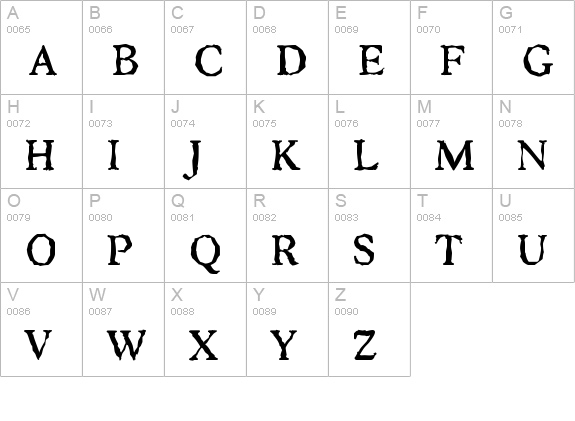
StratfordRandom-Regular is the standard, neutral variant in the StratfordRandom typeface family \xE2\x80\x94 well suited to general body text, paragraphs, and standard typographic work.
StratfordRandom-Regular is a versatile and modern font that exudes creativity and style. With its unique letter shapes and random variations, this font is perfect for adding a touch of personality to your designs. Whether you're working on branding, posters, or any other creative project, StratfordRandom-Regular is sure to make a statement. What makes StratfordRandom-Regular even better is that it is available for free download at FontsMarket.com. This means you can easily enhance your projects with this eye-catching font without having to worry about any additional costs. Don't miss out on the opportunity to elevate your designs with the distinctive charm of StratfordRandom-Regular - download it for free today!